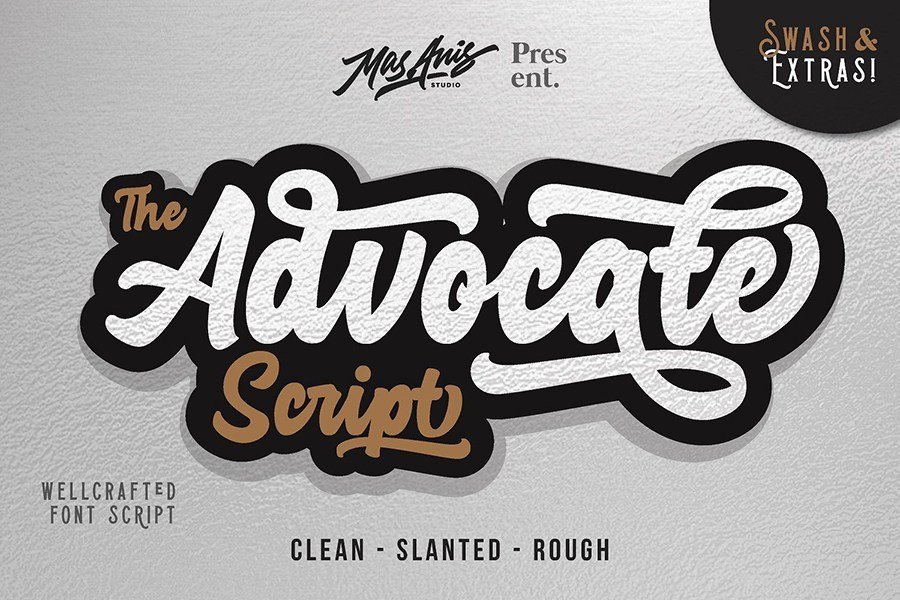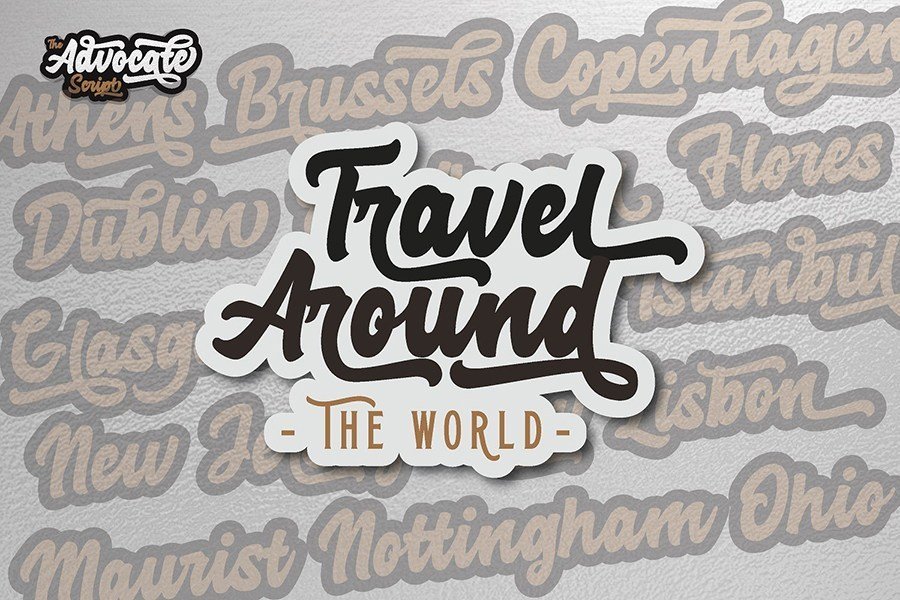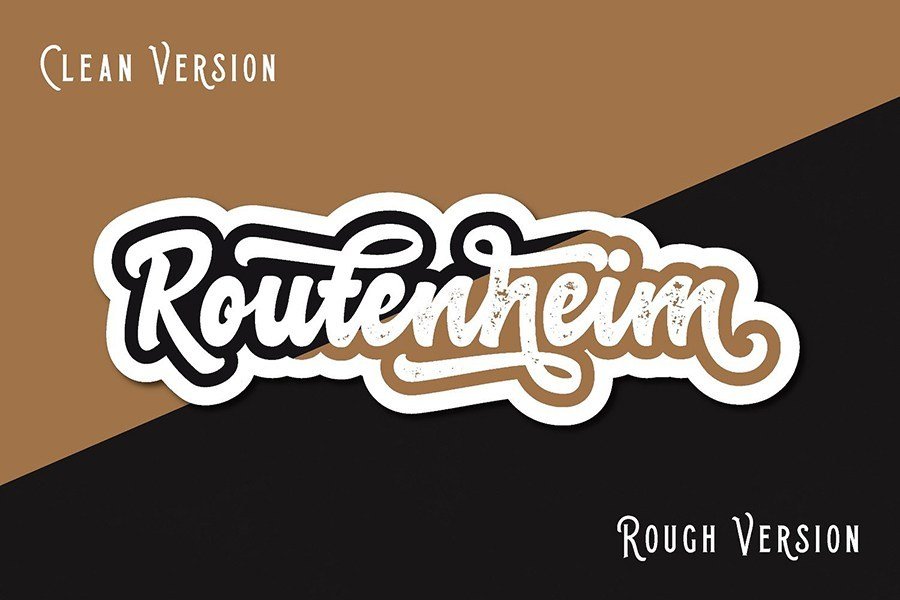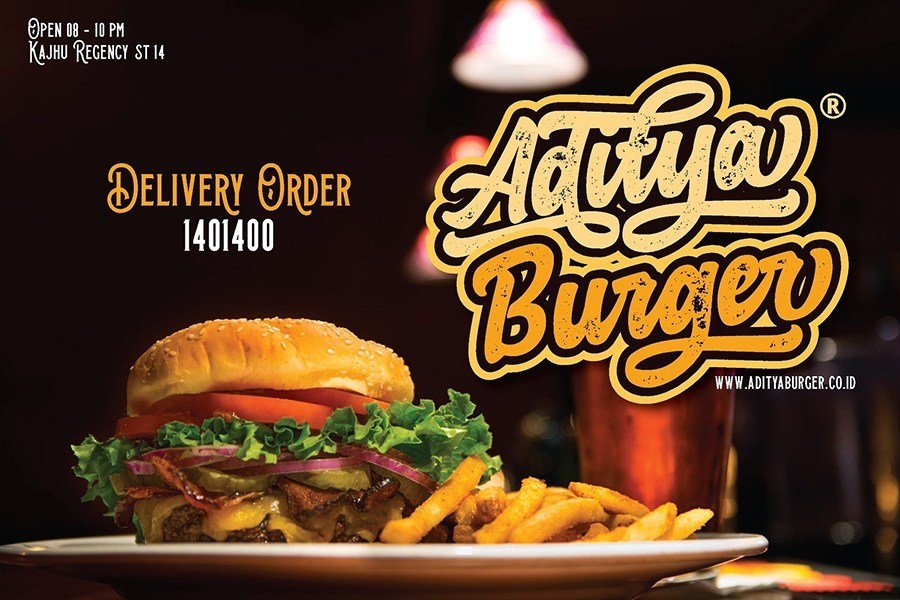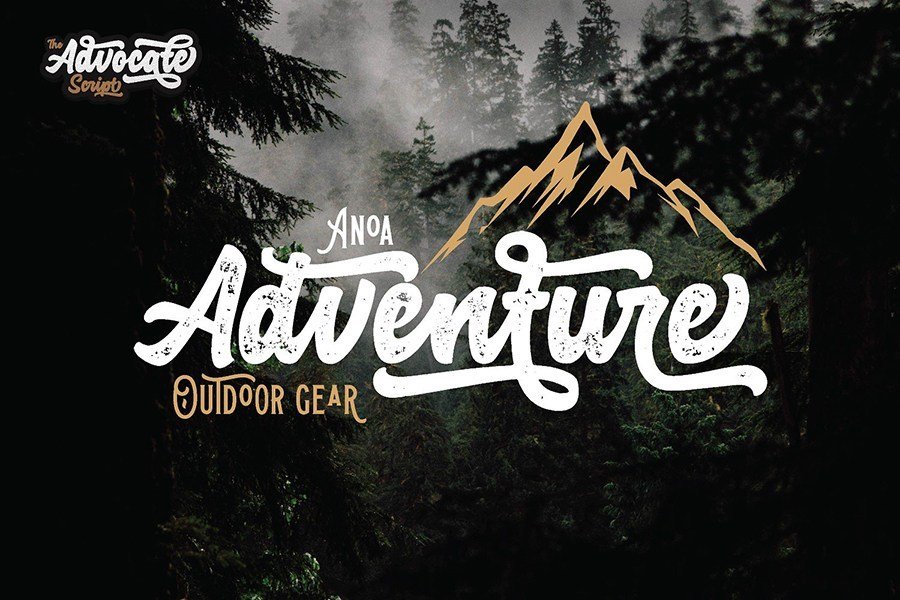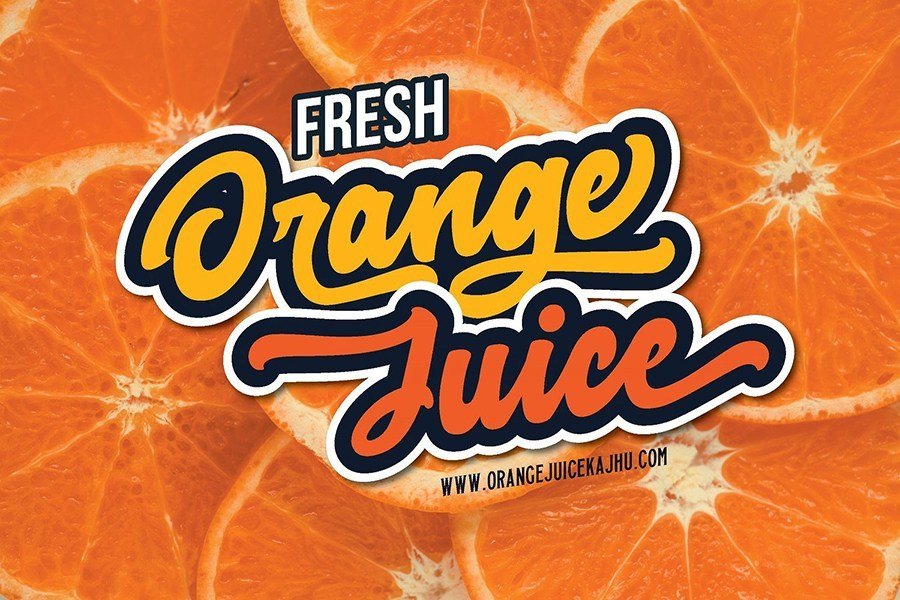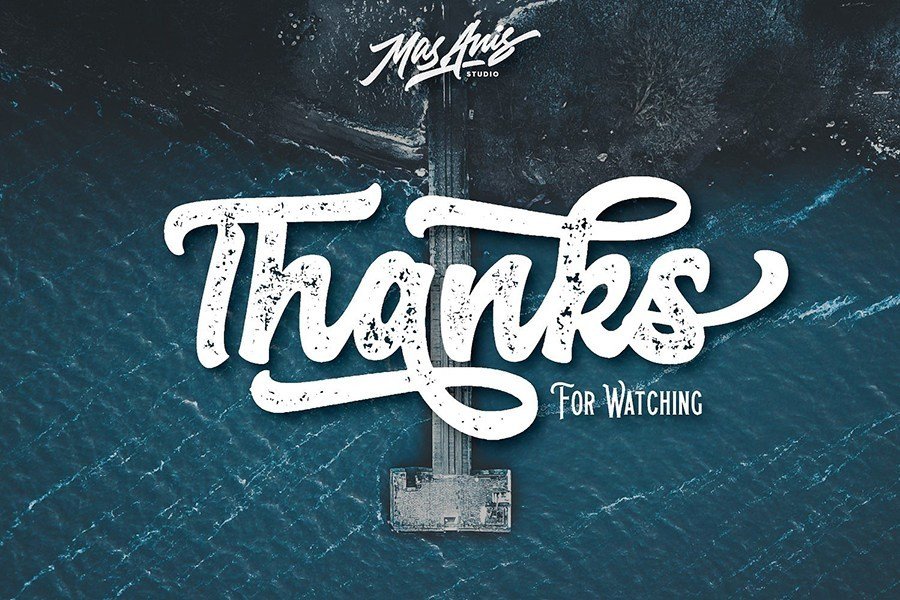
Advocate Script Font Demo The Advocate Script is brand new simple bold script we made for you, with classic neat handlettering style, attractive swashes and alternates to make your designs work more easier. Ideal for logos, handwritten quotes, product packaging, header, poster, merchandise, social media & greeting cards.